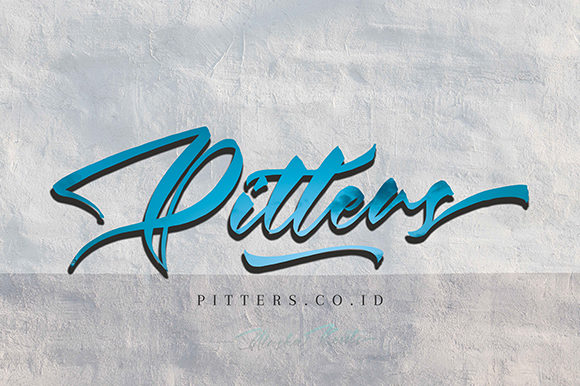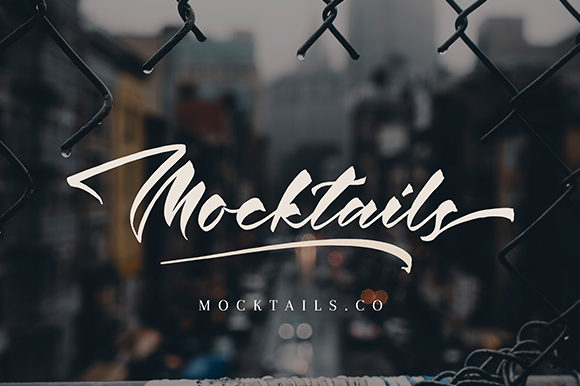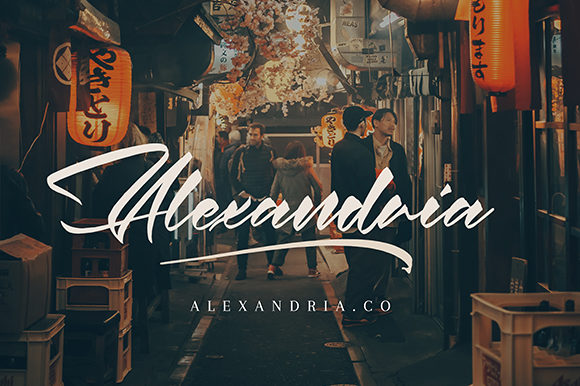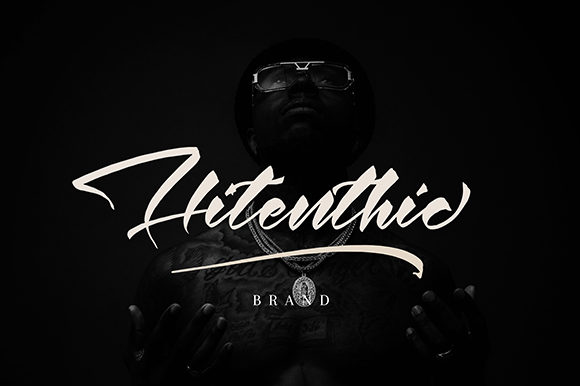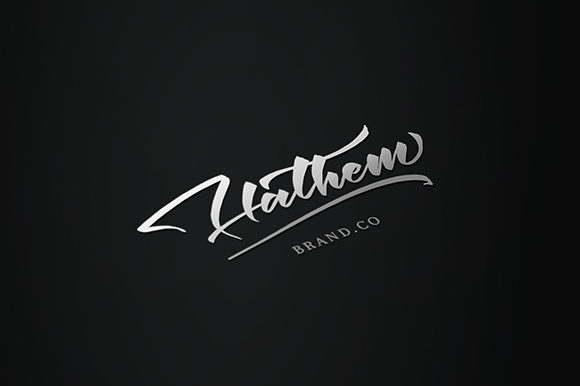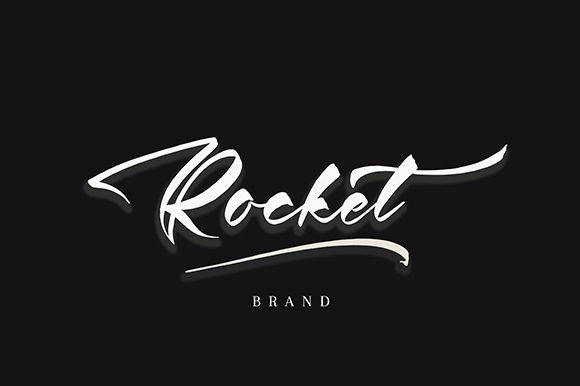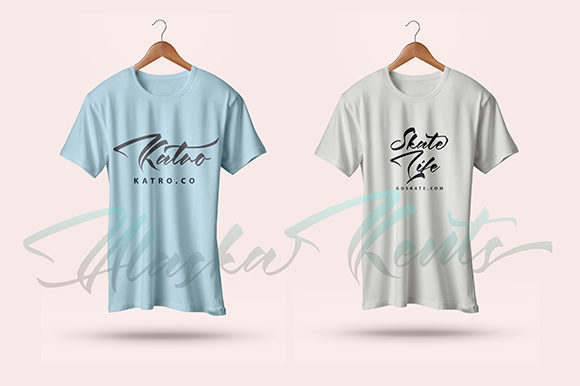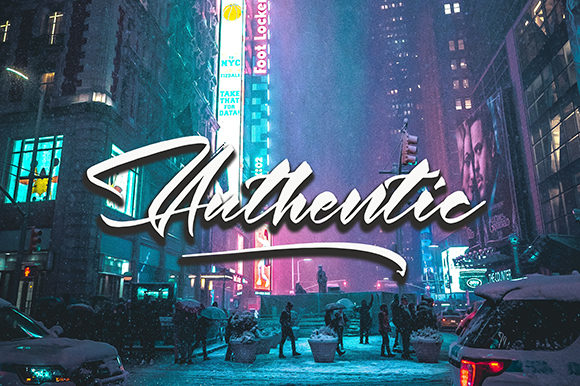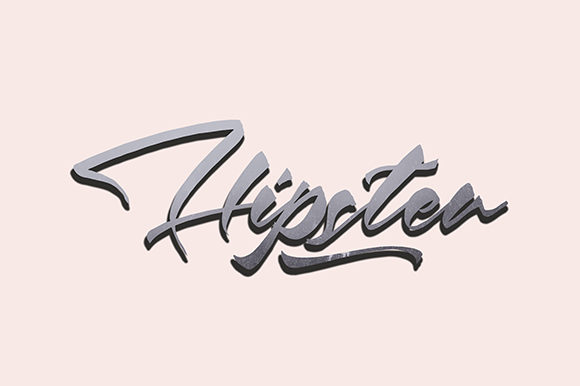
Alaska Kents Font
About Alaska Kents Font
Because of its elegant feel, Alaska Kents is the perfect handwritten script for a big variety of design projects!